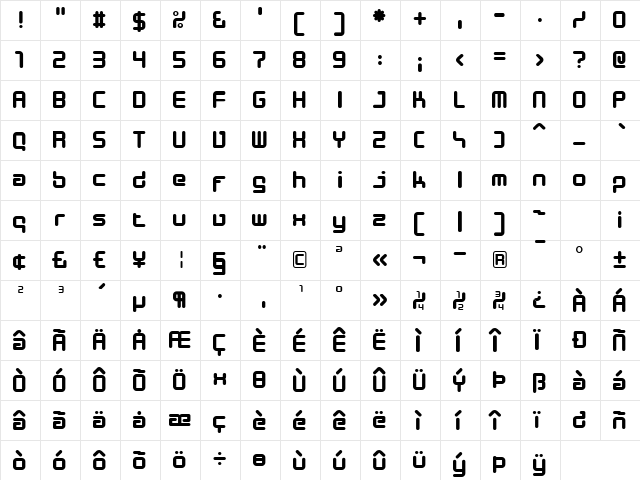
Designer Block Regular
Design Context for Designer Block Typeface
Designer Block offers clean, dependable letterforms without strong stylistic allegiance, making it a practical choice for designers who need flexibility.